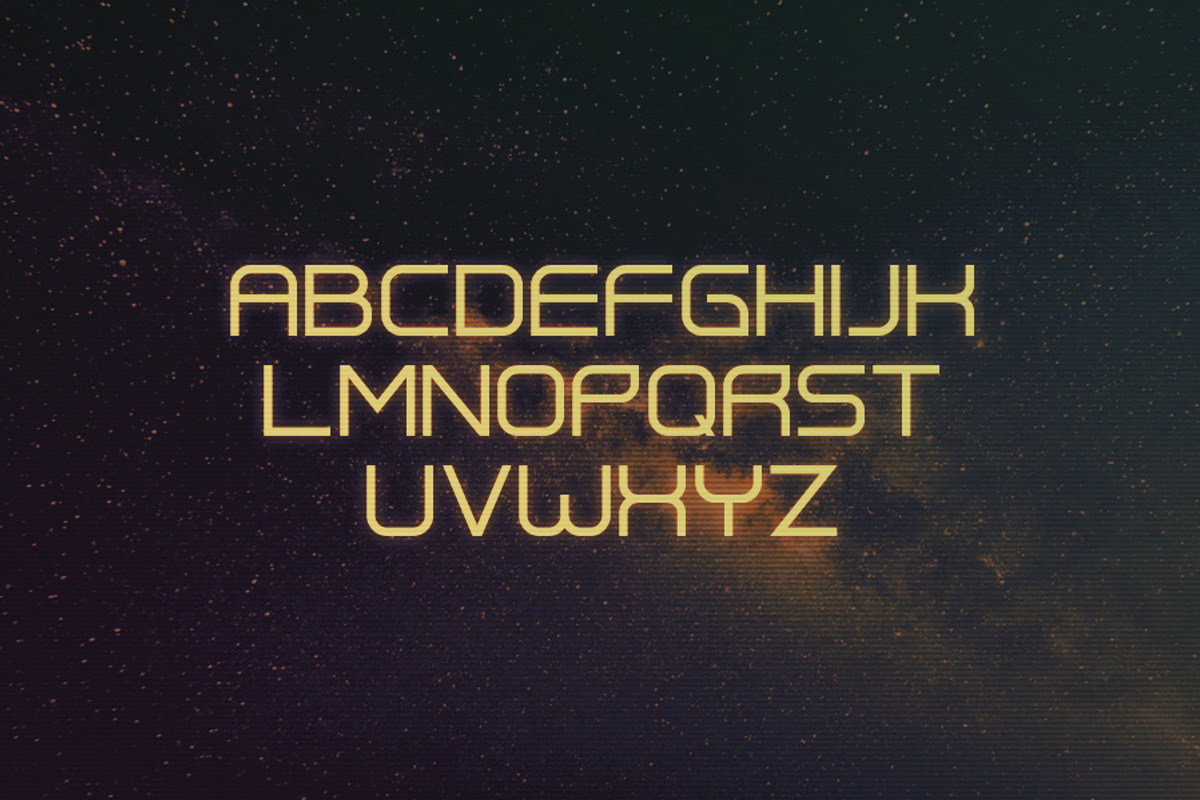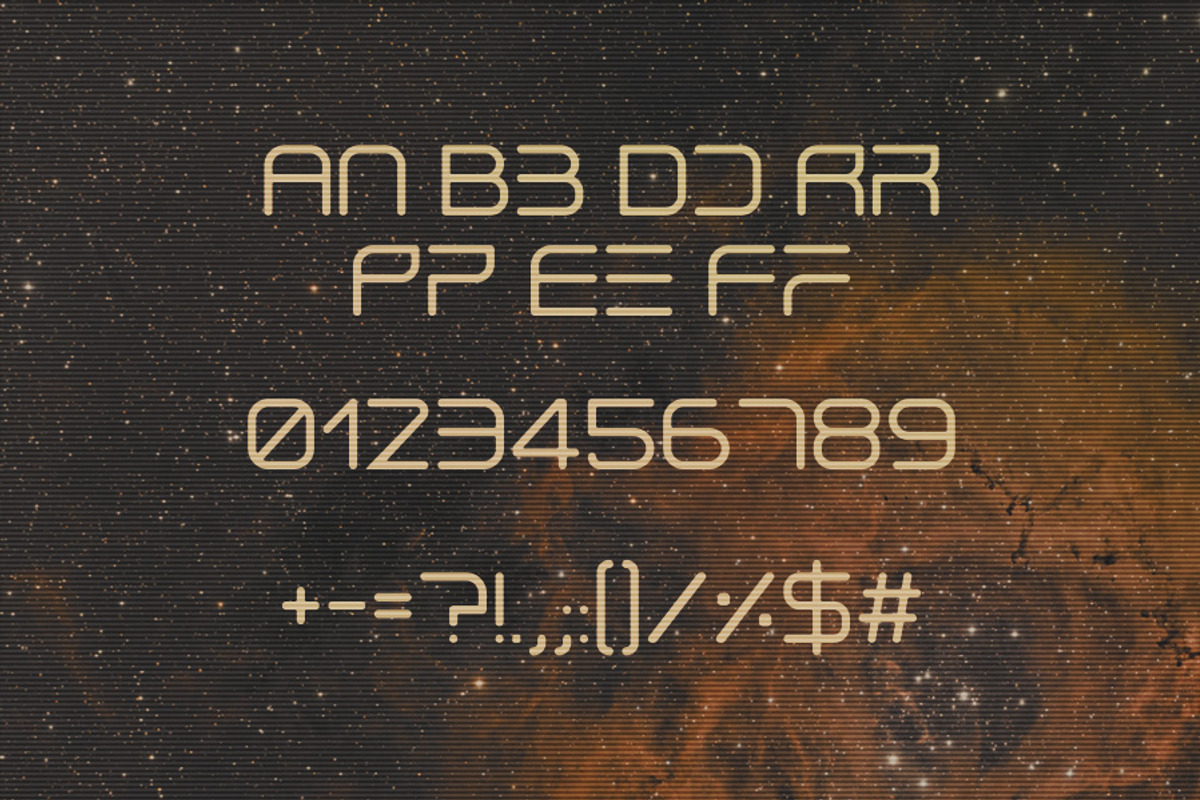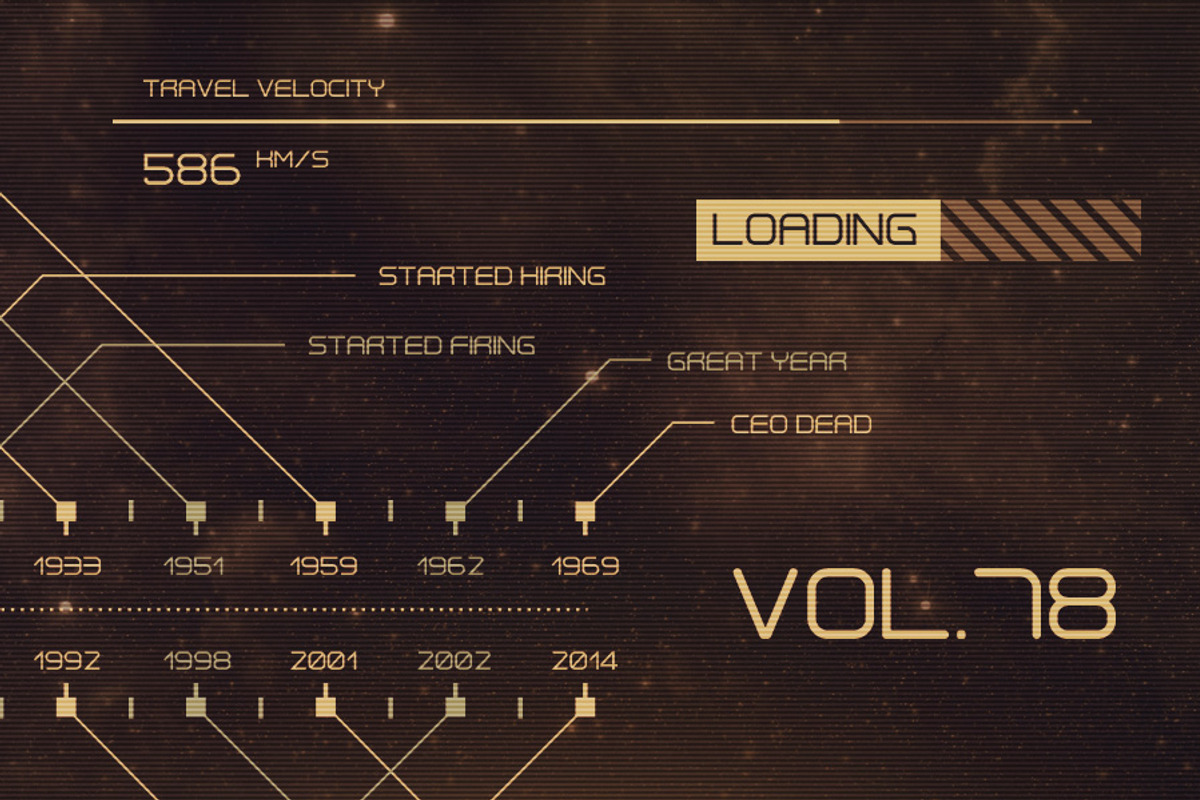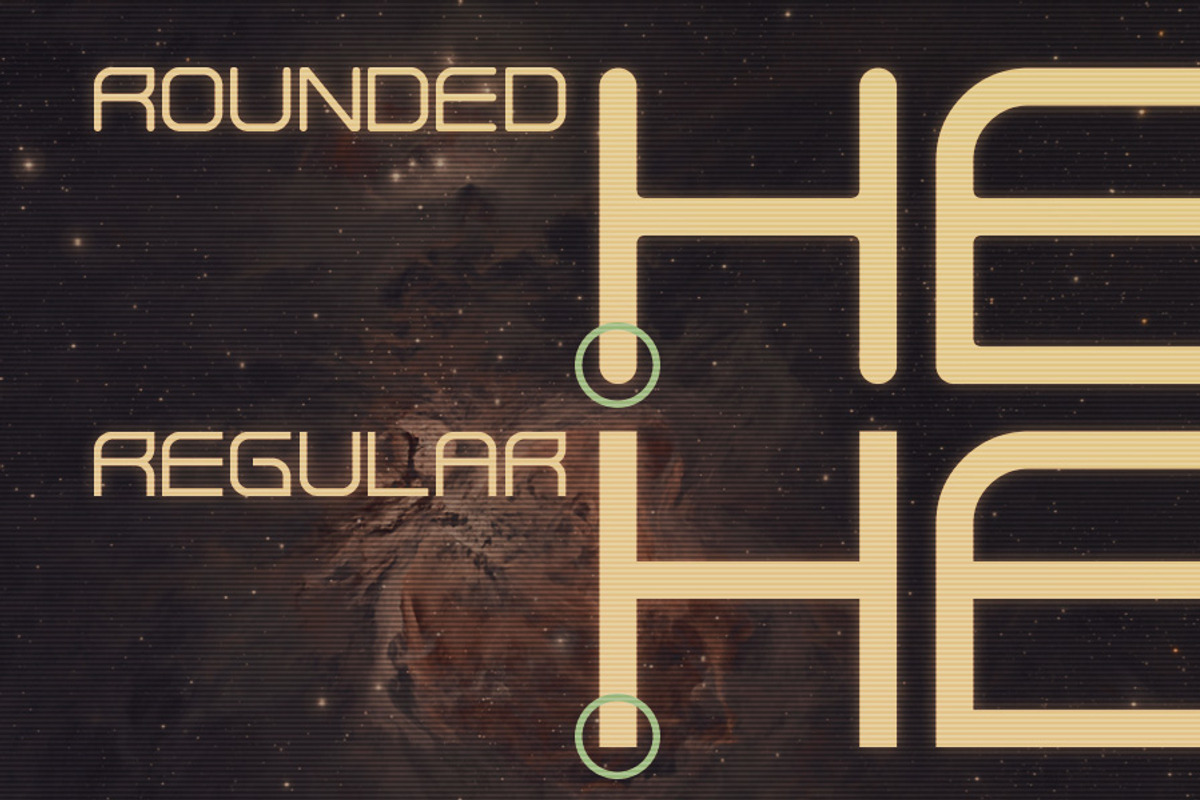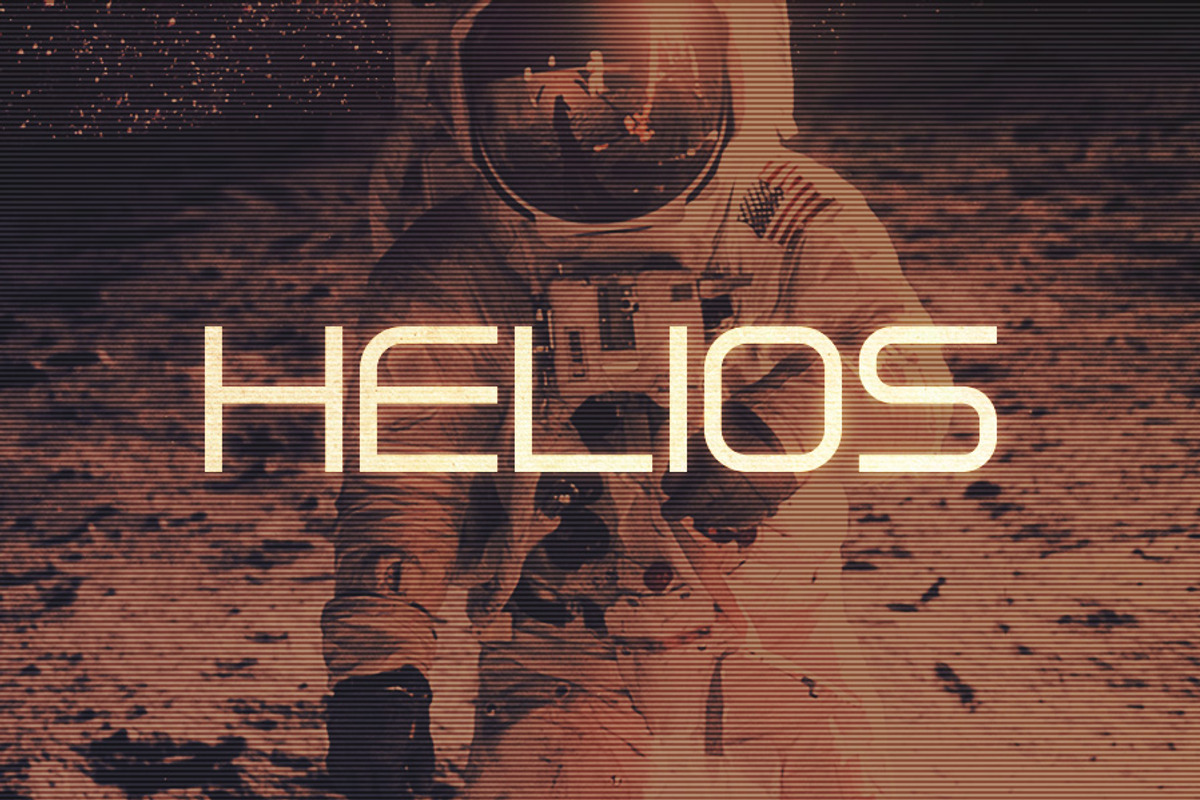
Helios Typeface
Helios is a futuristic typeface with rounded and regular corner options. It includes uppercase letters, numbers and punctuation. Some letters also have alternate versions which you can toggle with caps lock.